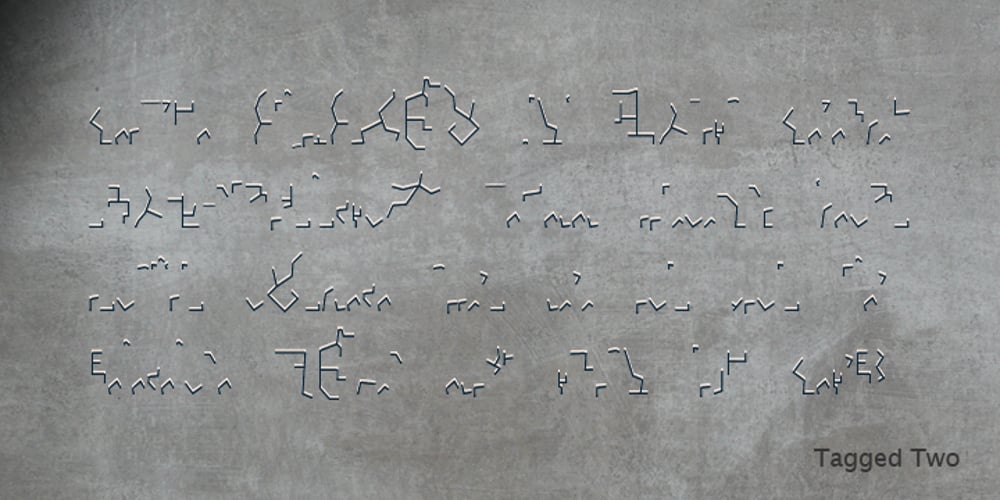
Tagged Two Font Family was designed by Jacek Dziubiński and published by j.dsky. Tagged Two contains 3 styles and family package options. This family is intended to be a universal font generator for languages of unknown civilizations or simply a tool for creating graffiti-like ornaments. Inspired by both my own paintings and drawings and graffiti. Set of 107 glyphs, available in 3 styles – thin, regular and black rounded. Picture font recommended for use as a decorative element and for creating new alphabets.